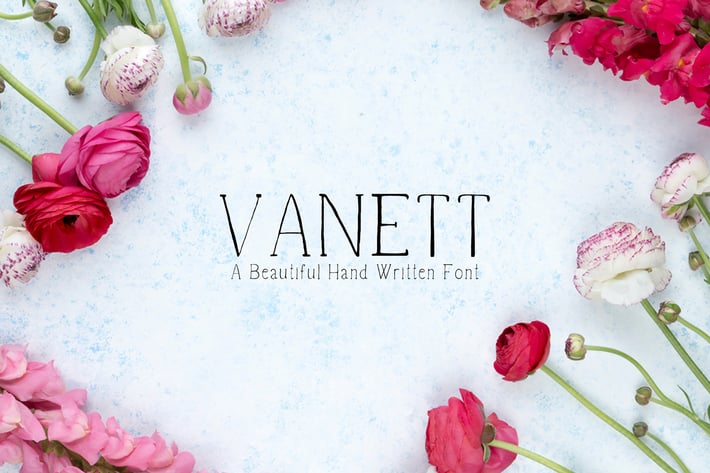
Vanett Handmade Font
Vanett is a handwritten script font containing uppercase, lowercase characters, numerals, punctuation and non-english characters. This font can always be the right choice for a lot of creative work like handwritten quotes, logo projects, merchandise, social media posts, displays, headers, invitations, save the dates, weddings, titles, product packaging, etc.
Vanett Font Features:
- Uppercase Letters
- Lowercase Letters
- Non English Characters ( Latin Supplement + Latin Extended A)
- ABCDEFGHIJKLMNOPQRSTUVWXYZ
- abcdefghijklmnopqrstuvwxyz
- 0123456789
- !"#$€%&'()*+,-./:;=?@[]^_`{|}~ £©®¿
- ÀÁÂÃÄÅÈÉÊËÌÍÎÏÒÓÔÕÖØÙÚÛÜÝßàáâ
- ãäåèéêëìíîïòóôõöøùúûüýÿ